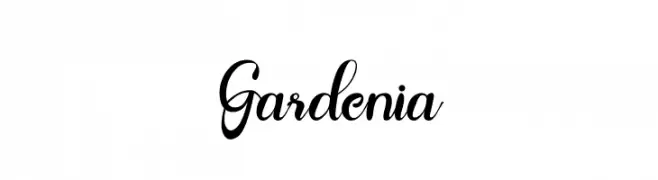
An elegant, flowing script font with ornate, cursive letterforms.
A bold and expressive handwritten font with flowing, cursive elements.
A charming and elegant handwritten font with fluid, cursive strokes.